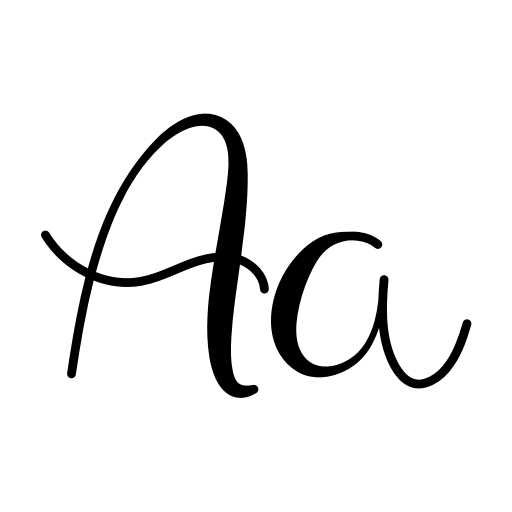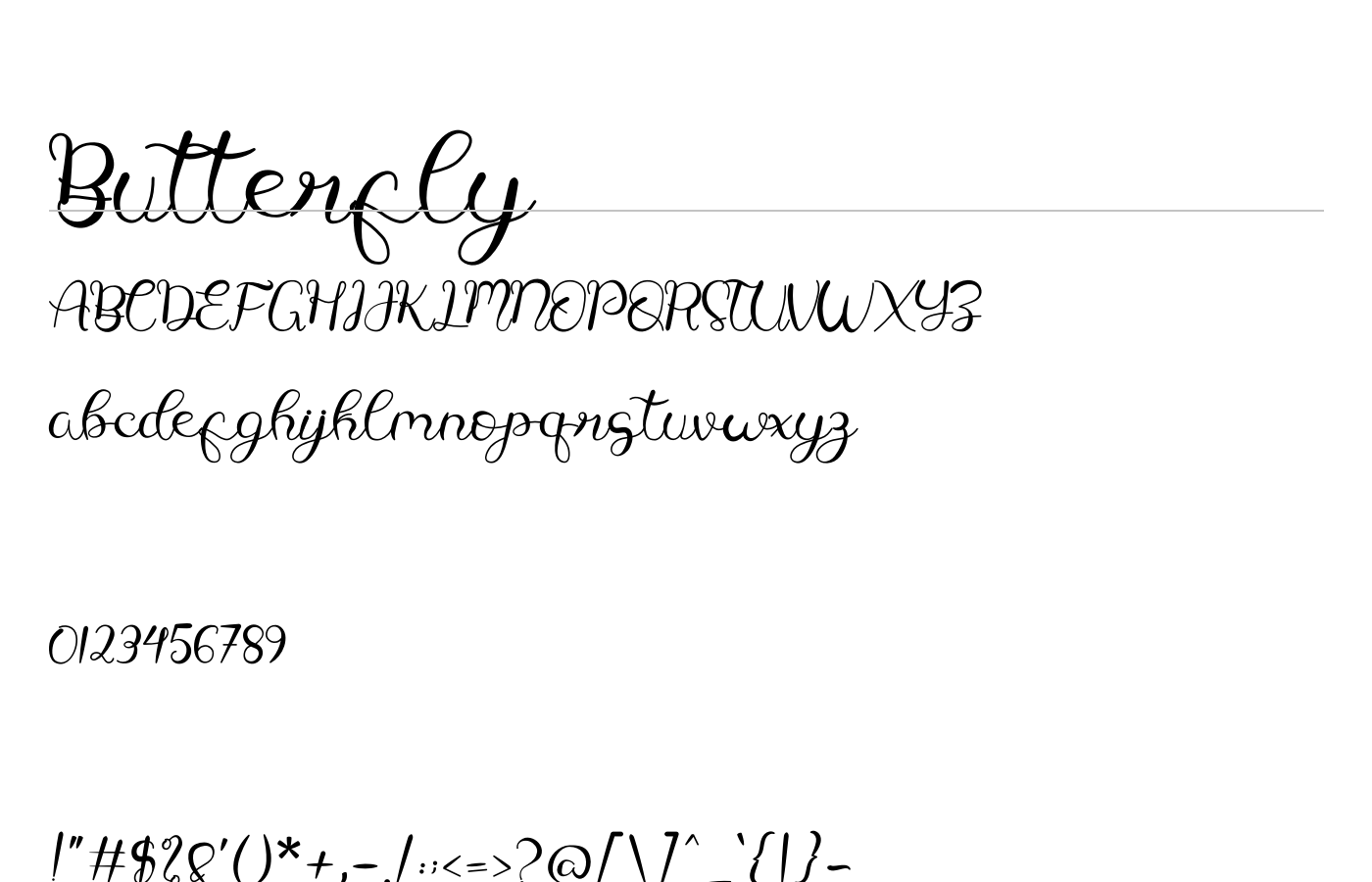
Butterfly is a delicate, handwritten script font featuring elegant, flowing strokes with a light weight and moderate contrast that adds a charming, personal touch. Its graceful letterforms and smooth curves make it perfect for invitations, feminine branding, and creative projects where an intimate, stylish feel is desired. This font works beautifully in logos, greeting cards, and headings where a sophisticated yet approachable aesthetic is important.
Butterfly Font
About Butterfly Font
| Font family | Butterfly Font |
| Designer | Bayu Suwirya |